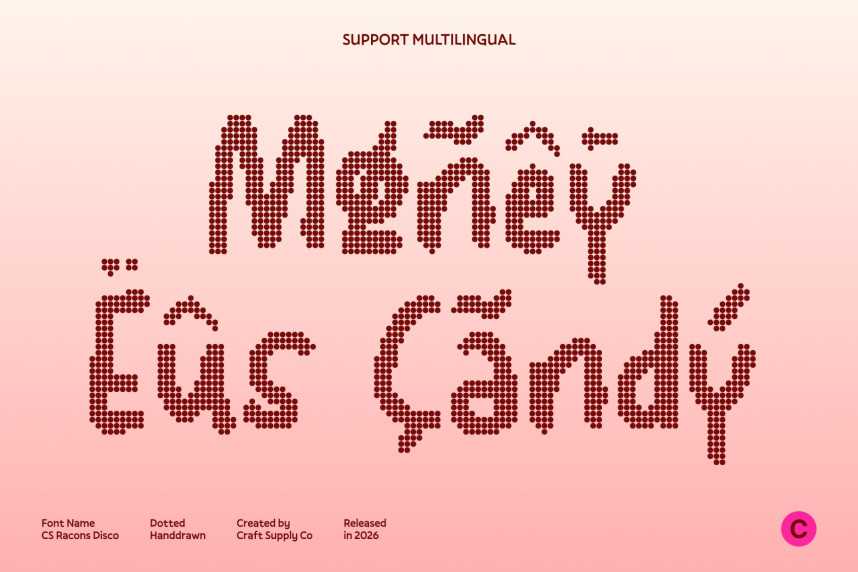
CS Racons Disco Font
CS Racons Disco Font – Playful Handwritten Charm with Sparkling Energy Cute Handwritten Style with Disco Flair. This is a cute handwritten display font that blends friendly, expressive strokes with a lively disco-inspired dotted texture. Its soft curves and casual handwriting style create a warm, approachable personality, while the sparkling dot pattern adds a festive rhythm that makes every letter feel lively and eye-catching.